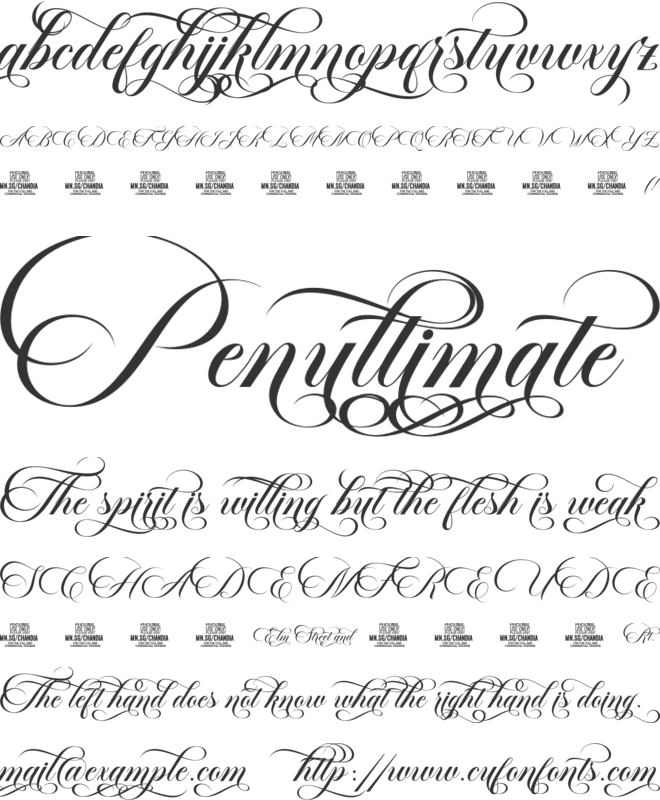
Chandia Decorative PERSONAL Font Family
NOTE: This font is for PERSONAL USE ONLY!To purchase a commercial license, visit:https://www.mansgreback.com/product/chandiaChandia is a dramatic cursive typeface, drawn with high precision and an elegant hand. Flourishing with romantic swashes and long tails, the lettering flows with a confident grace that brings to mind engraved invitations.Use underscore _ after any word to make a swash. Example: Beautiful_For questions, please visit https://mansgreback.com/faq